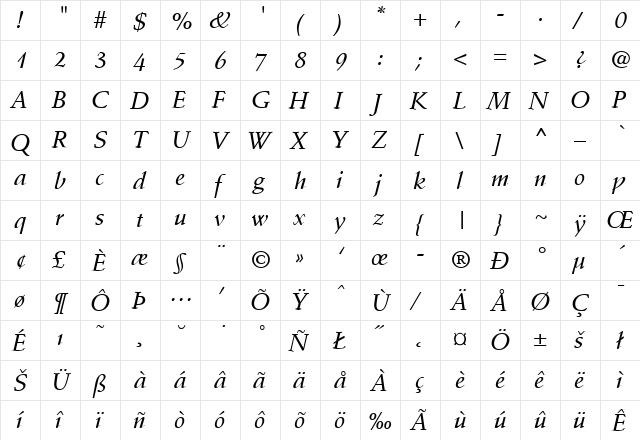
StempSchMedIta Regular
Design Context for StempSchMedIta Typeface
StempSchMedIta takes a measured approach to typography — its balanced proportions and neutral character make it a reliable workhorse for both digital and print work.